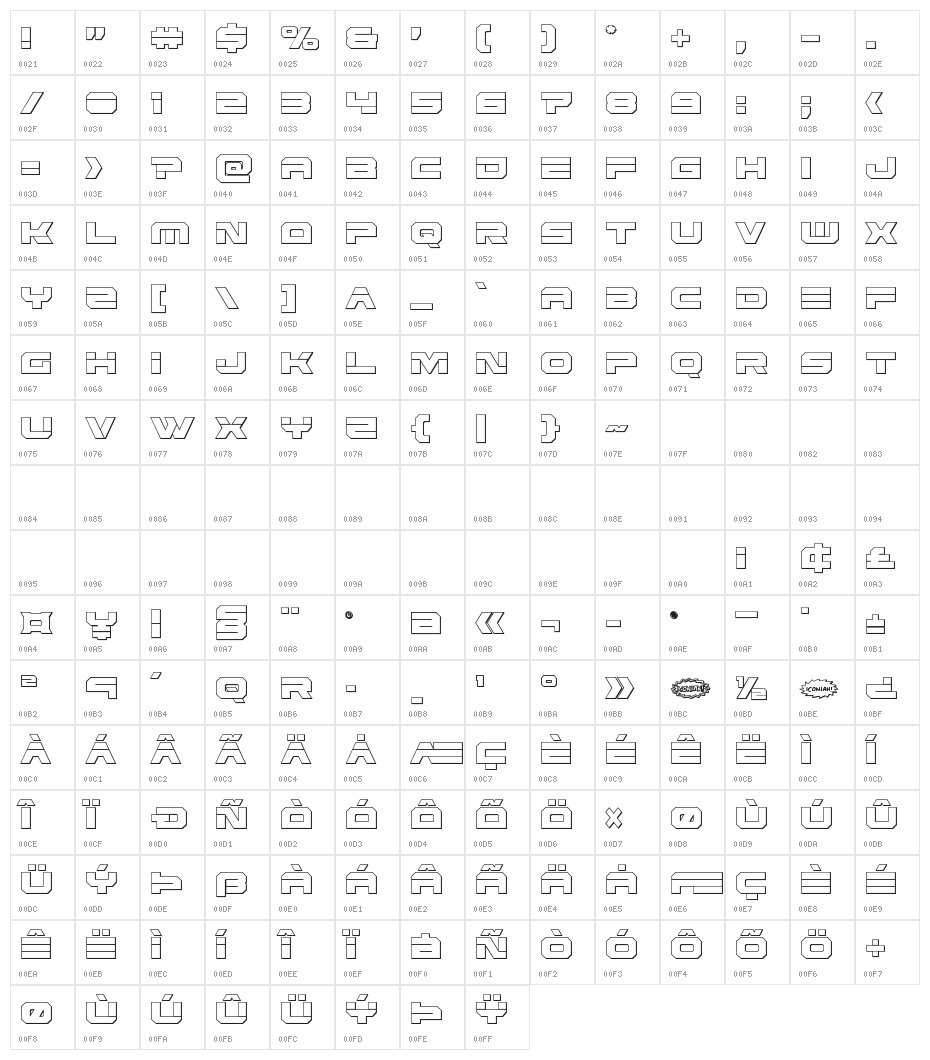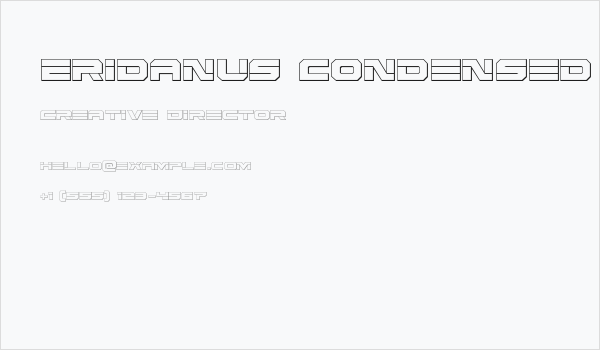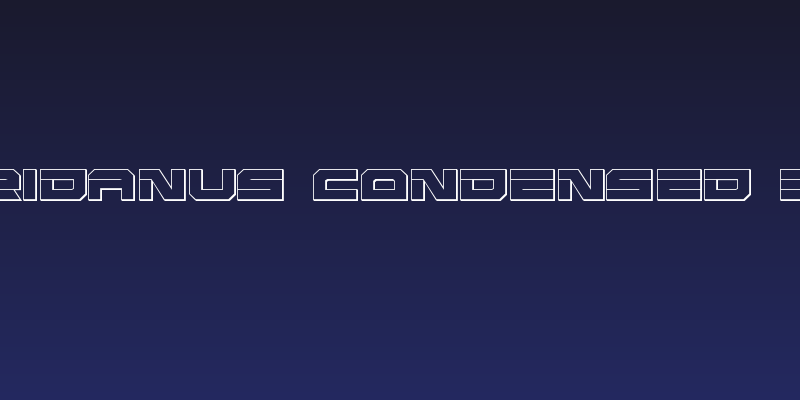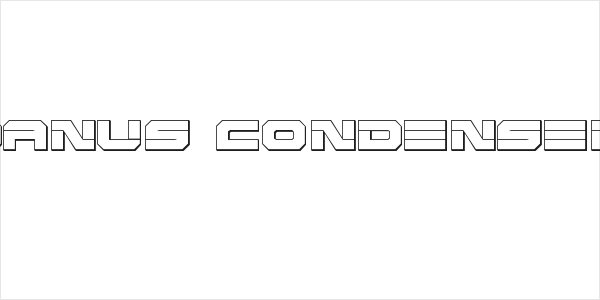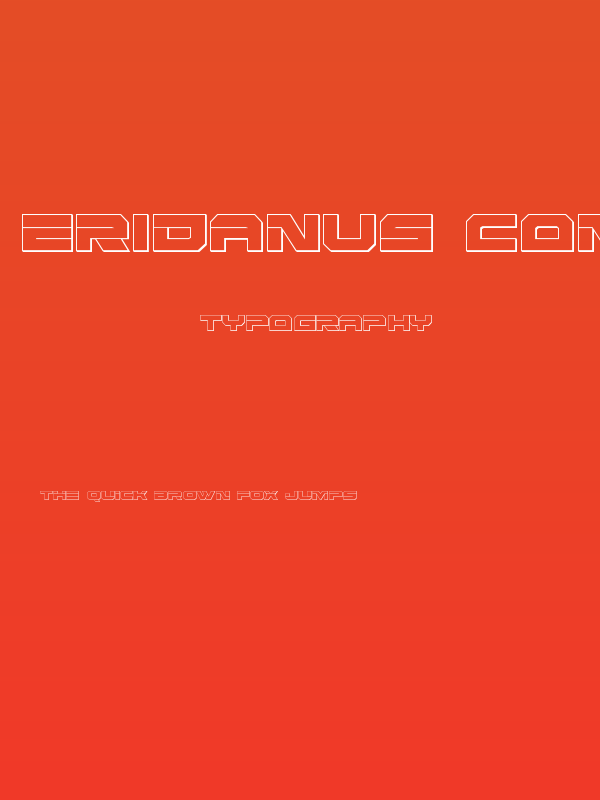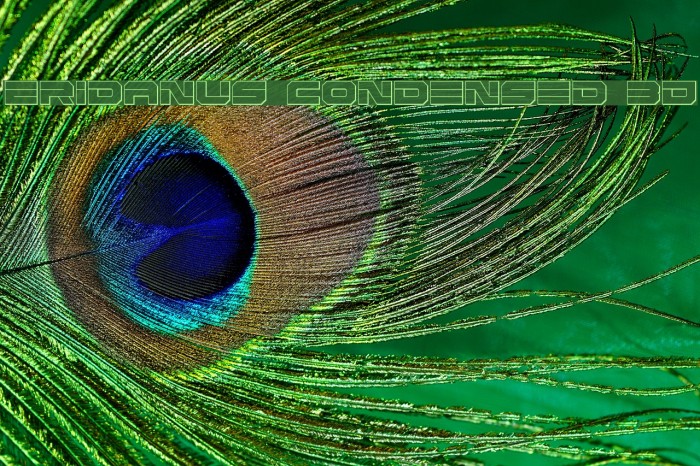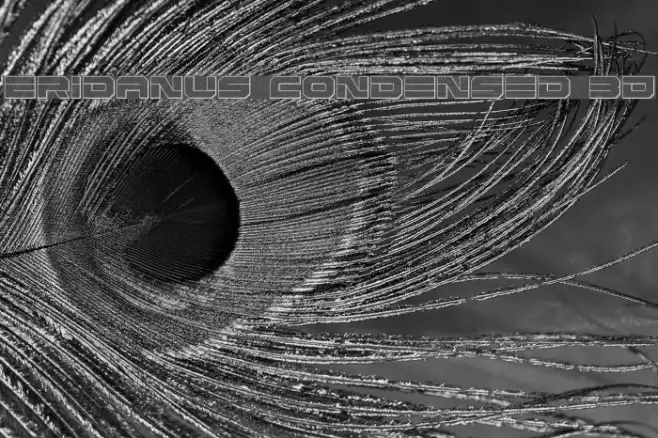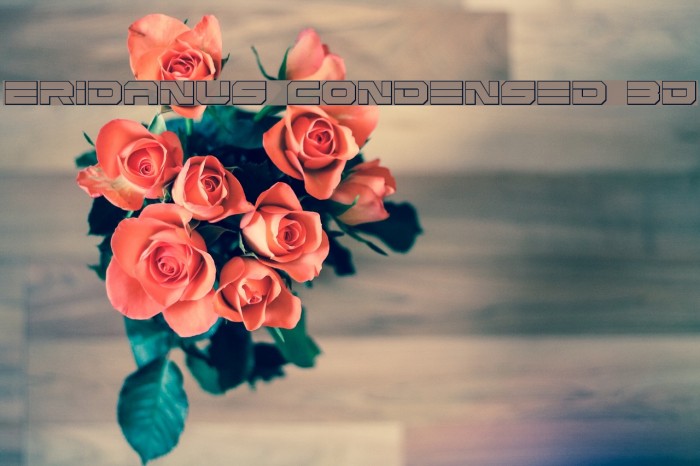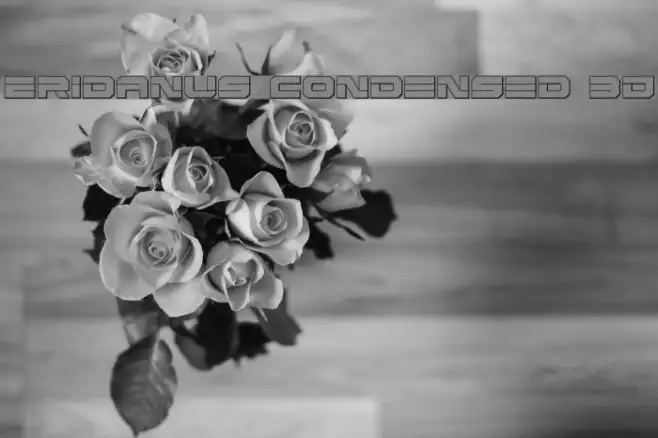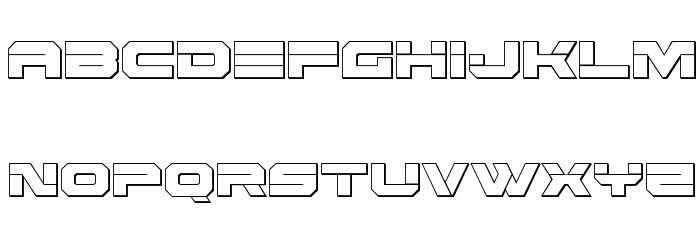
Eridanus Condensed 3D Font
Eridanus Condensed 3D Description
This font features a bold, three-dimensional appearance with a futuristic and geometric style. The characters are outlined, giving them a hollow look that enhances the 3D effect. The design is condensed, making it suitable for tight spaces while maintaining readability. The angular and blocky shapes of the letters contribute to a modern and tech-inspired aesthetic. The font includes uppercase letters, numbers, and a variety of special characters, all maintaining the same stylistic theme. Its unique design makes it stand out, ideal for projects that require a strong visual impact.
| Proposed Projects | Ideal for sci-fi themed posters, video game titles, tech branding, and futuristic advertisements. |